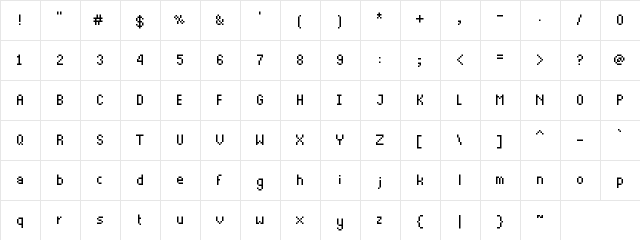
Thintel Regular
Design Context for Thintel Typeface
Thintel takes a measured approach to typography — its balanced proportions and neutral character make it a reliable workhorse for both digital and print work. The delicate stroke weight brings airiness and refinement to layouts.